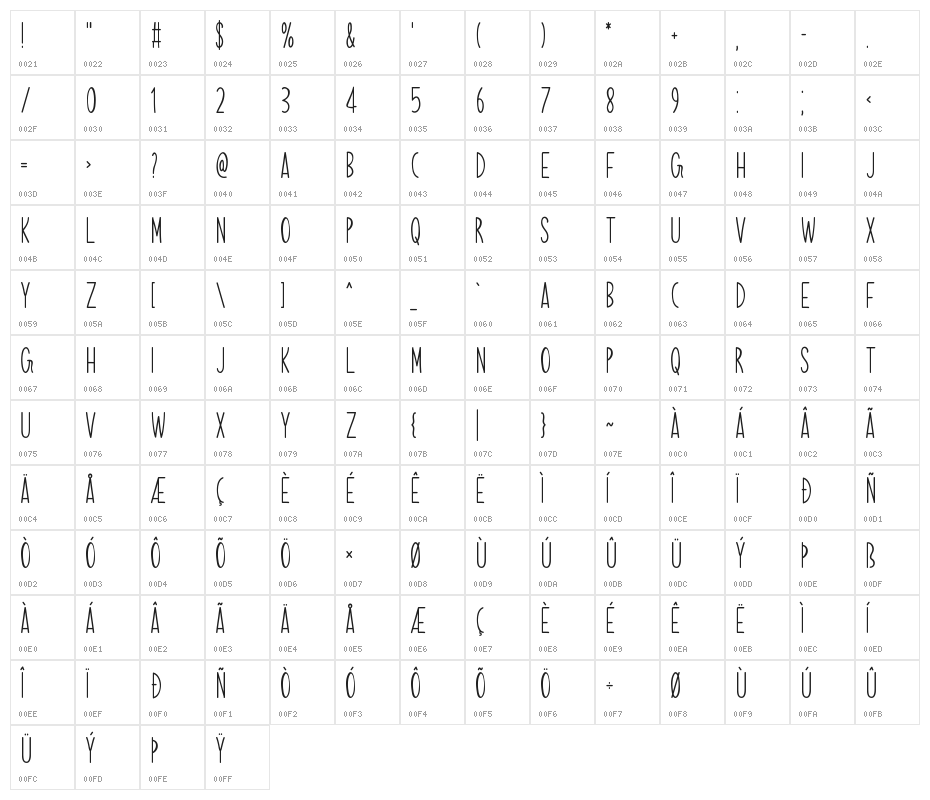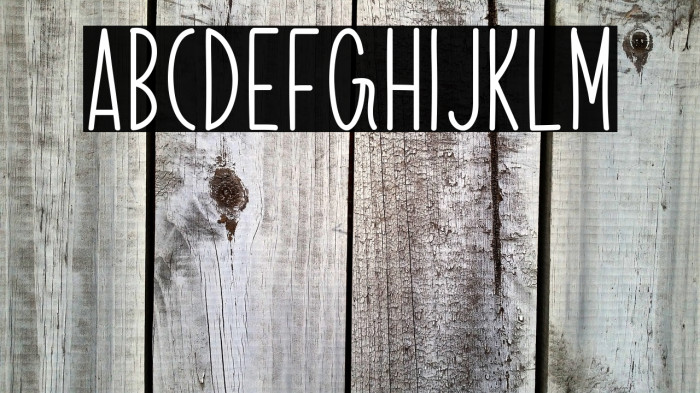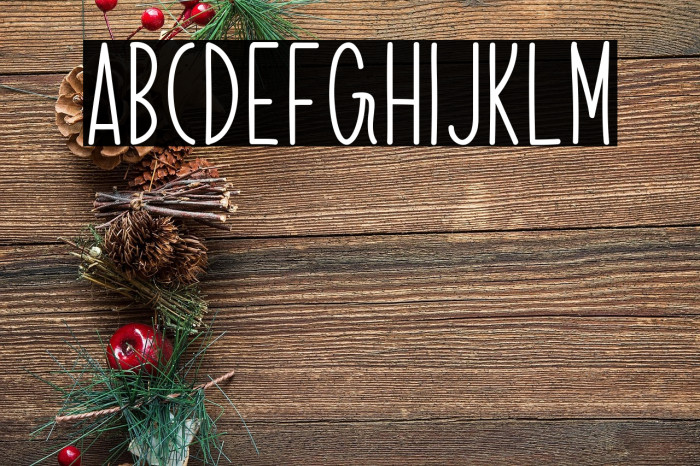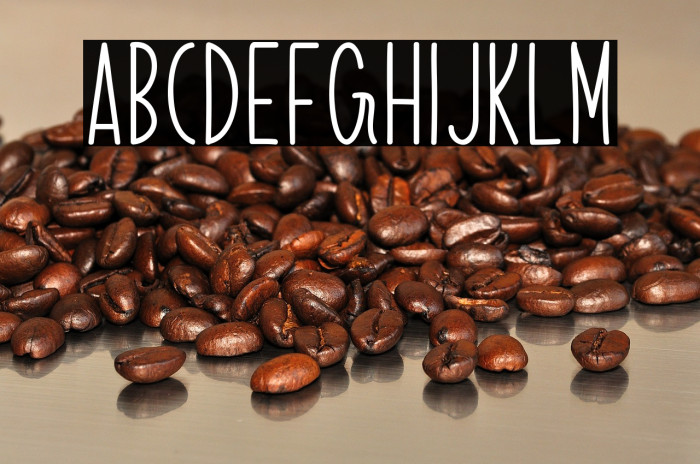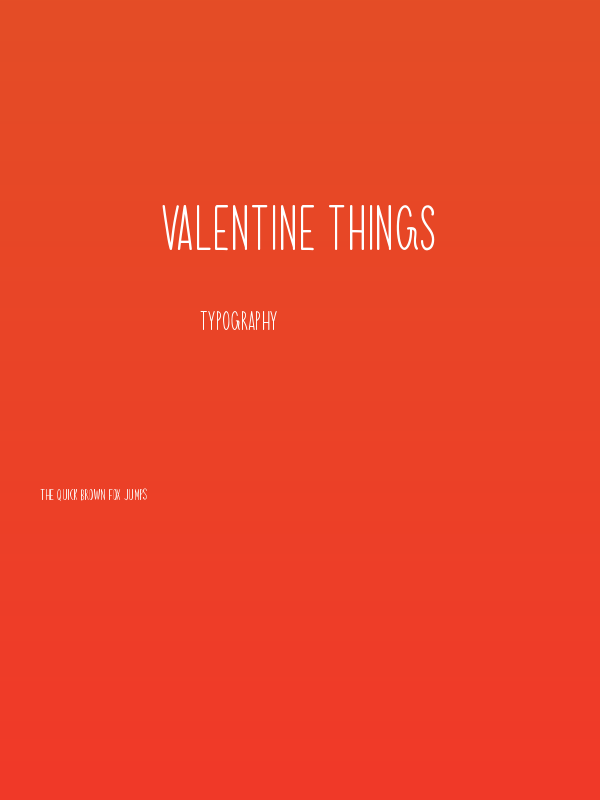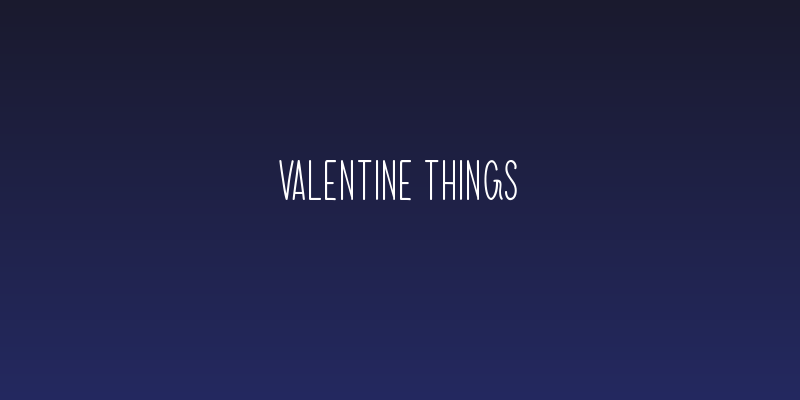
Valentine Things Font
Valentine Things Description
This font features a playful and whimsical style with tall, narrow letters that have a hand-drawn appearance. The characters are slightly irregular, adding a charming and informal touch. The uppercase and lowercase letters maintain a consistent height, while the numbers and special characters complement the overall aesthetic. The strokes are uniform in thickness, giving it a clean and modern look. This font is ideal for projects that require a friendly and approachable feel, such as greeting cards, invitations, and playful branding.
| Proposed Projects | Greeting cards, invitations, playful branding, children's books, and casual posters. |